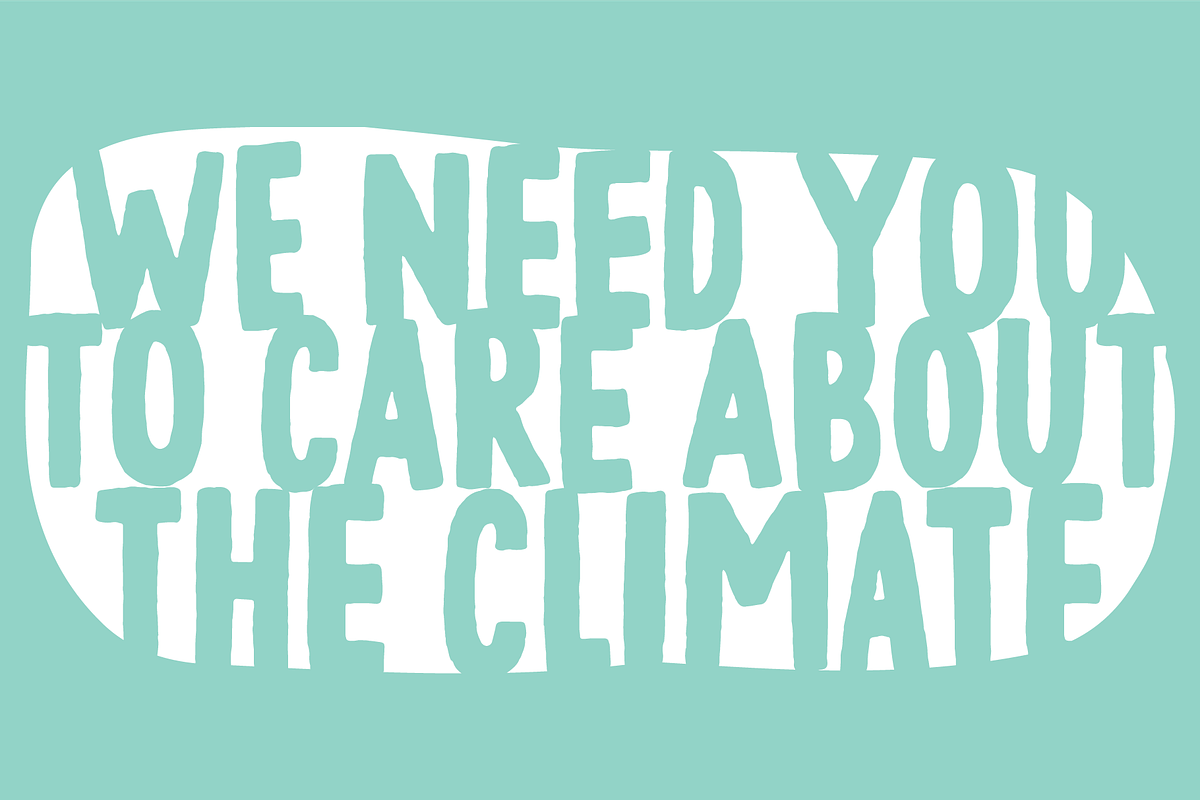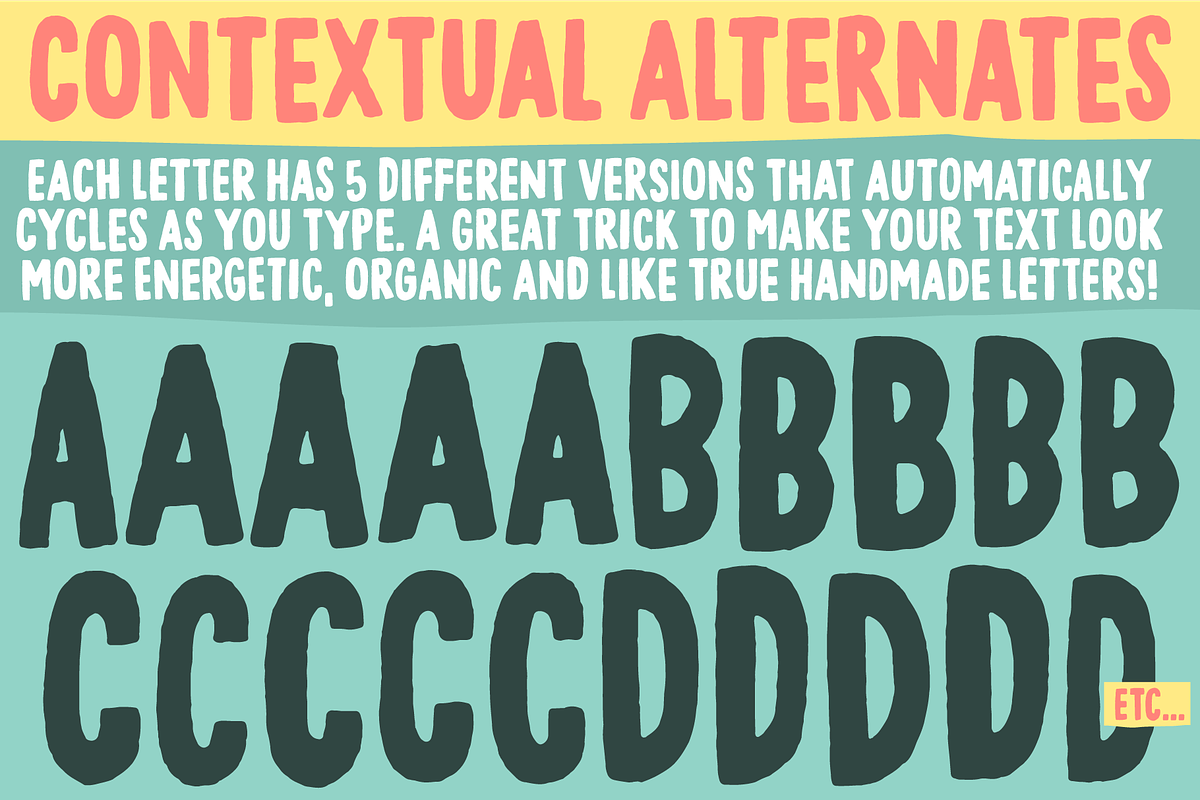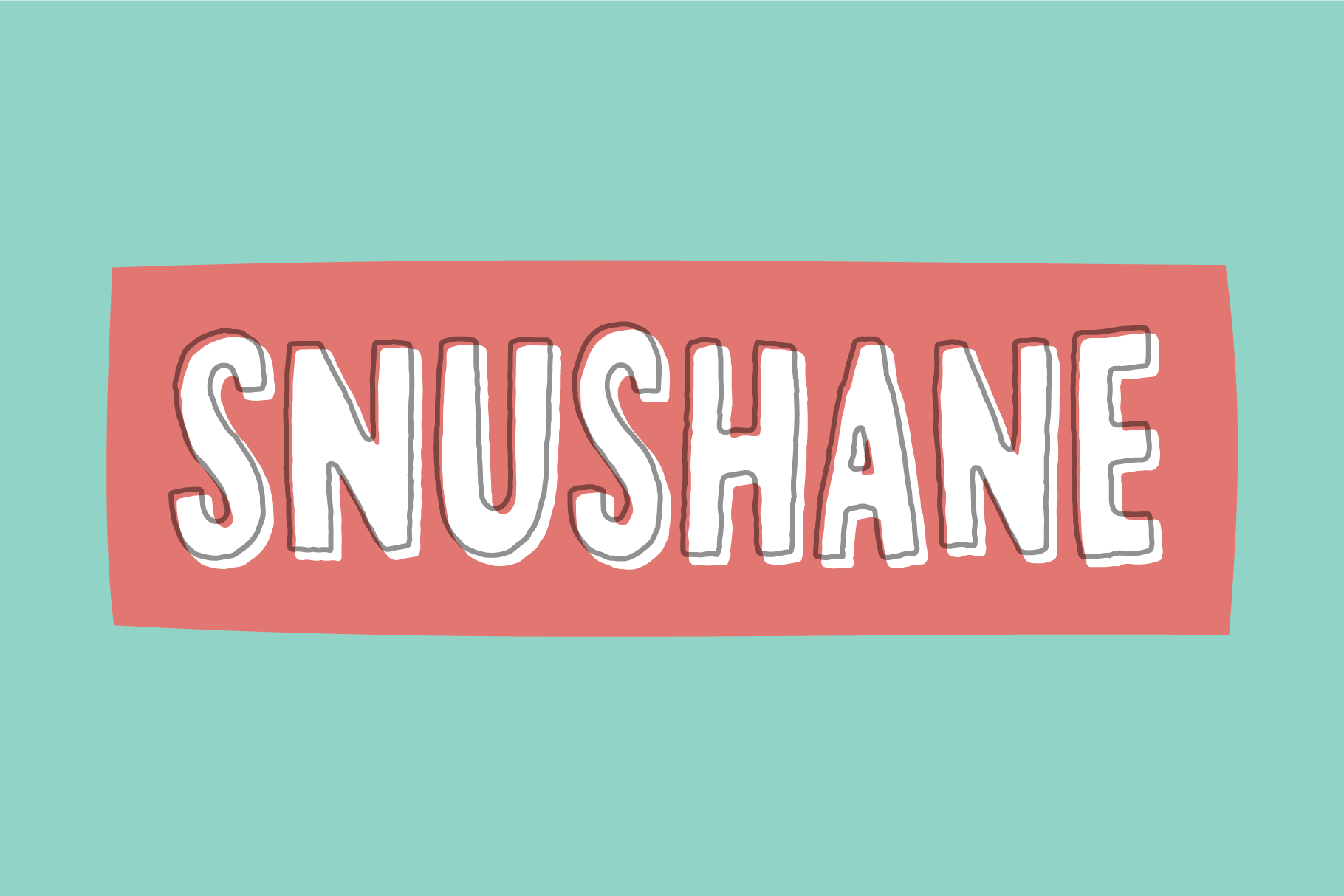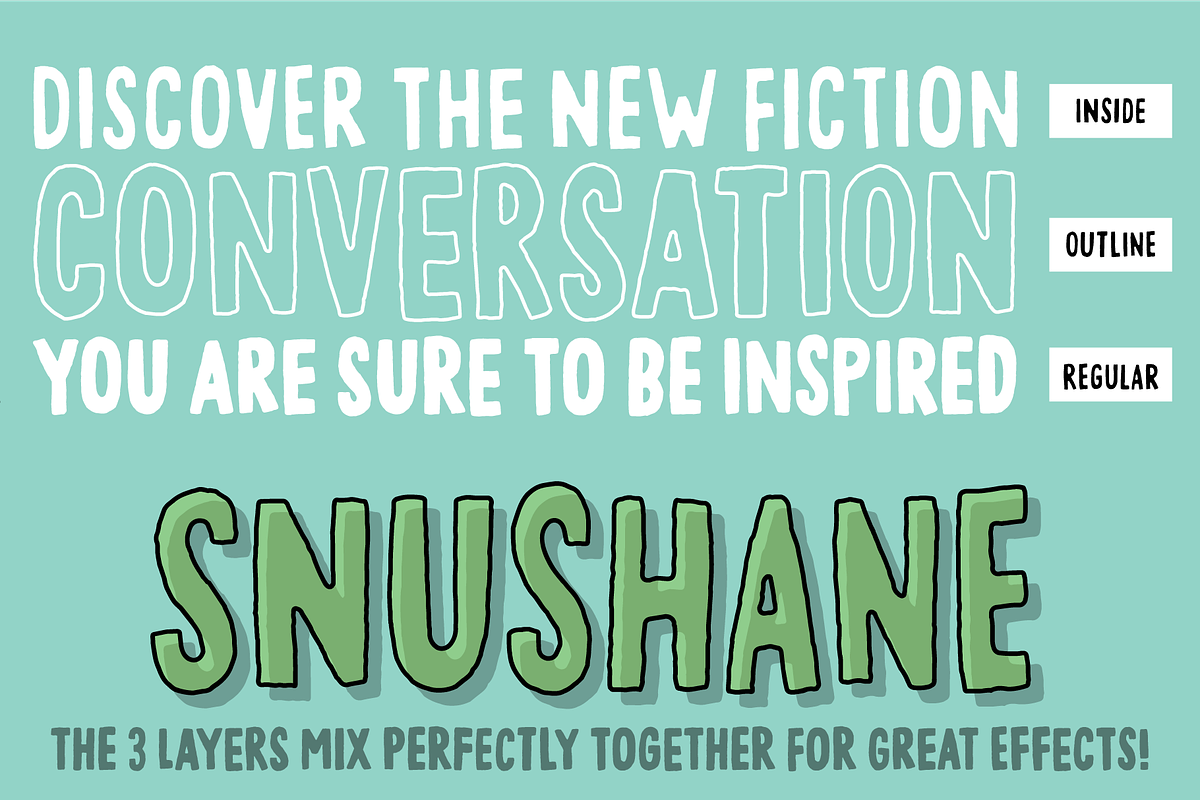
Snushane font
Another one of those “perfect for a headline that needs an organic and handdrawn look” fonts. Snushane has a lot of character and likes to play with it’s organic typographic muscles. I’ve added 5 different versions of each letter that automatically cycles as you type - and that goes for the Regular, Outline and Inside versions. All of these versions have multilingual support as well!